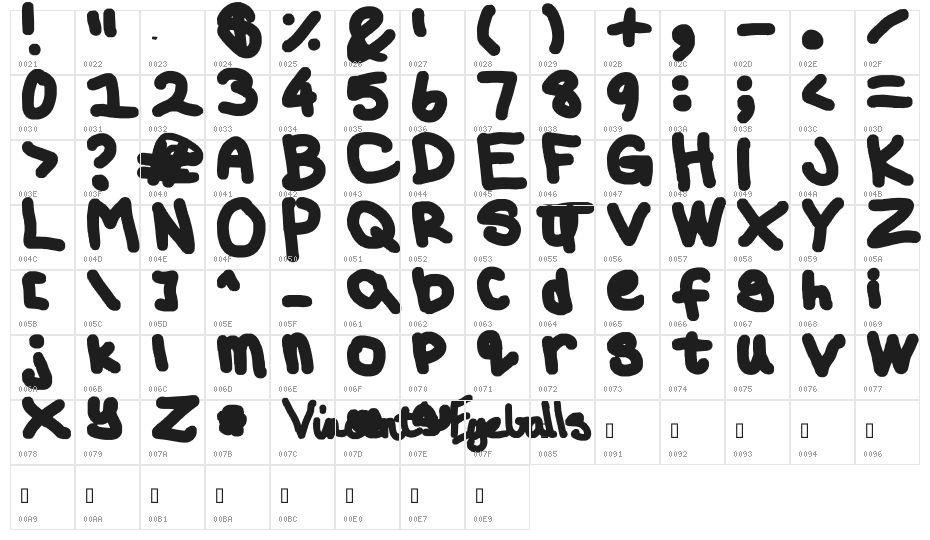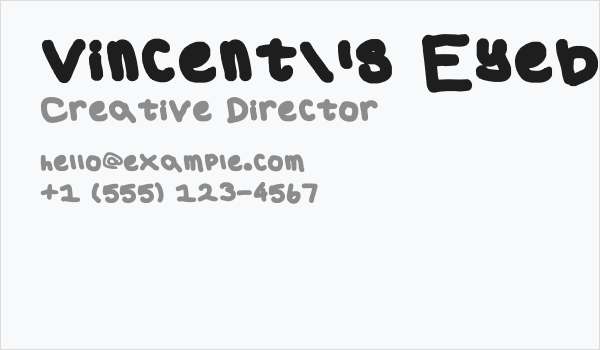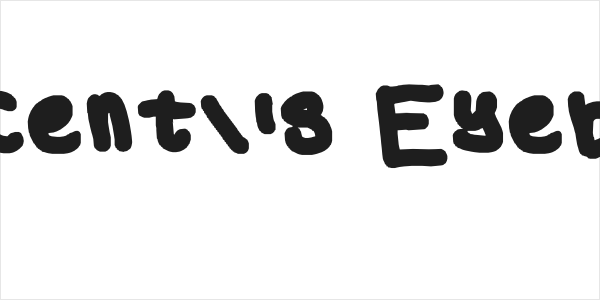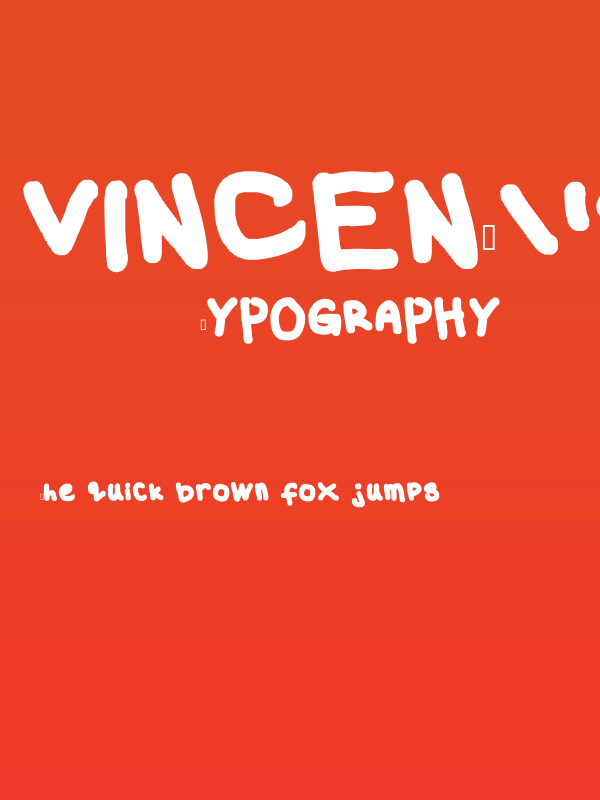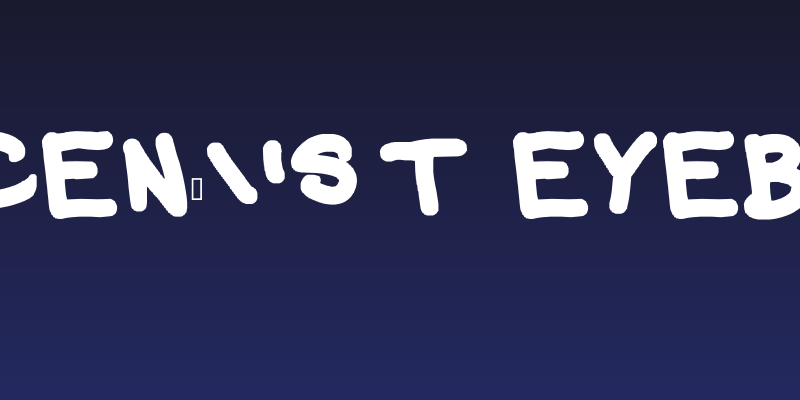
Vincent's Eyeball Font
Vincent's Eyeball Description
This playful and bold font features thick, rounded strokes that give it a whimsical and informal appearance. The characters are slightly irregular, adding to its hand-drawn charm. The uppercase and lowercase letters maintain a consistent style, with a noticeable emphasis on rounded edges and a bubbly form. Numbers and special characters follow the same playful aesthetic, making it suitable for creative and fun projects. The font's unique style is eye-catching and can add a touch of personality to any design.
| Proposed Projects | Ideal for children's books, comic strips, playful branding, and creative posters. |